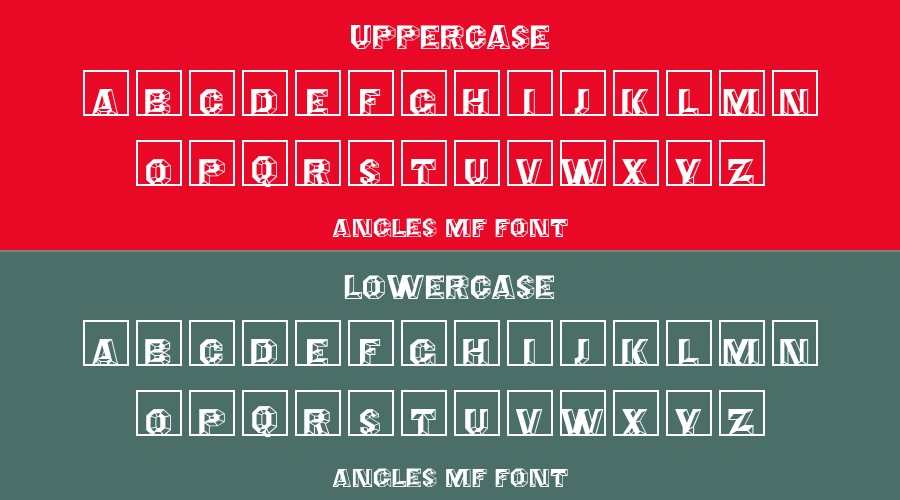
About Angles Mf Font
Angles Mf Font stands out for its distinctive combination of natural flow and functionality. Ideal for product naming, it provides the consistency and reliability that professional projects demand. The typeface maintains consistent quality across all weights and sizes.
Key features include refined clean corners and practical arrow sets, enhancing typographic expression. In hero imagery applications, Angles Mf Font demonstrates exceptional large format impact. The crossbar height and aspirational quality contribute to its distinctive character and professional appeal.